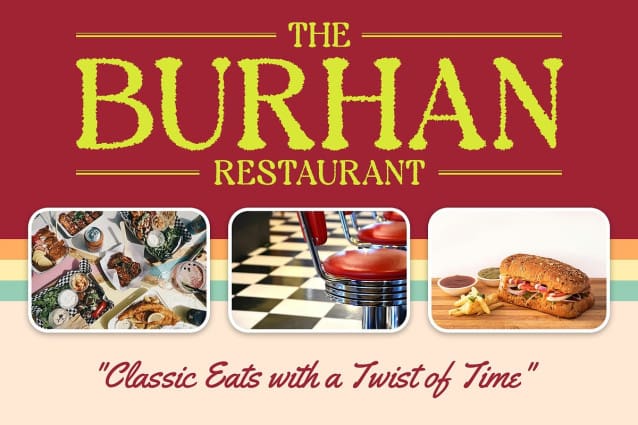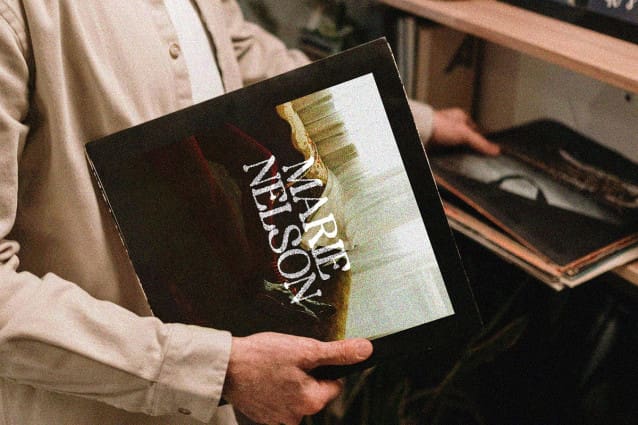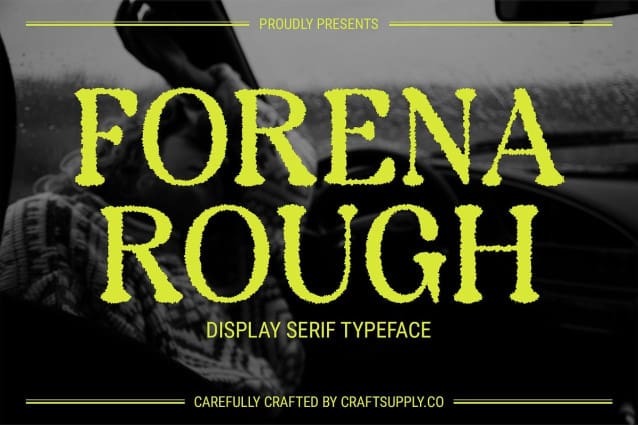
Forena Rough Font
Forena Rough Font is a modern serif font that combines the softness of rounded shapes with a distinctive rough effect. Its smooth, curved edges offer an approachable and contemporary look, while the textured finish introduces an element of rugged charm. This blend creates a unique visual appeal that stands out in various design contexts.
Approachable Elegance with a Bold Edge The contrast between the font’s elegant, rounded serifs and its rough texture makes Forena Rough both sophisticated and bold. This balance between refinement and distinctiveness is perfect for designs that need to convey a blend of elegance and originality. The font is ideal for creative branding, eye-catching promotional materials, and any project that seeks to make a memorable impression.
Versatile for Unique Design Needs Forena Rough’s combination of smooth curves and textured details makes it versatile for a range of applications. Whether you’re designing modern logos, dynamic marketing materials, or stylish branding elements, this font delivers a sophisticated yet striking appearance that enhances any creative project.